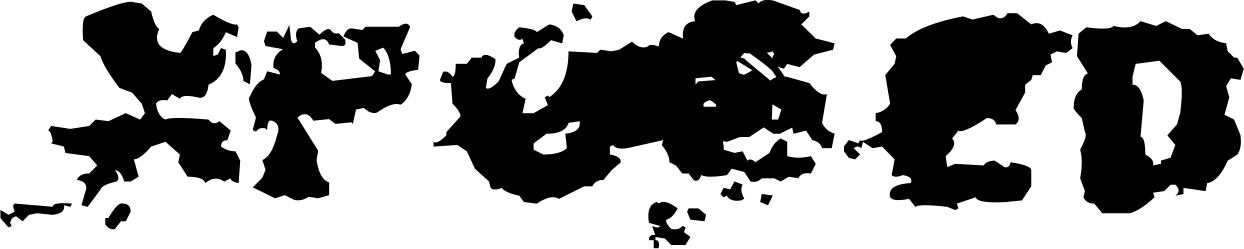
Xposed Font
For having a seamless text design, what comes first is picking the right font. Xposed is a destroy font that appears in damaged and bold characters. This case can be perfect for movie posters, apparel, video games, and whatnot. It adds an odd and unusual vibe to your text layout and lacks lowercase letters. By the way, note that it’s not that readable.